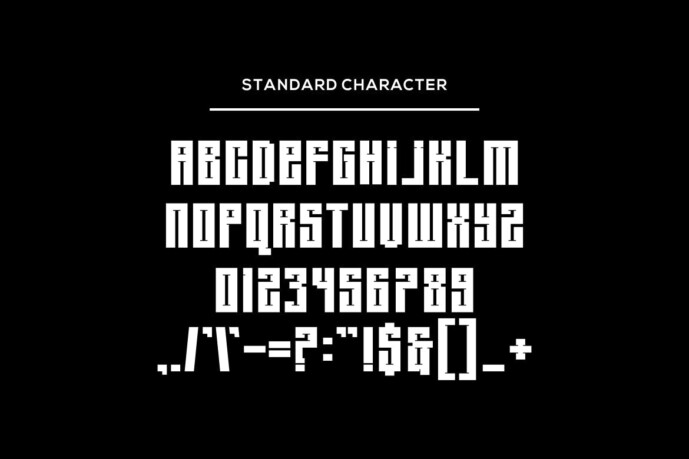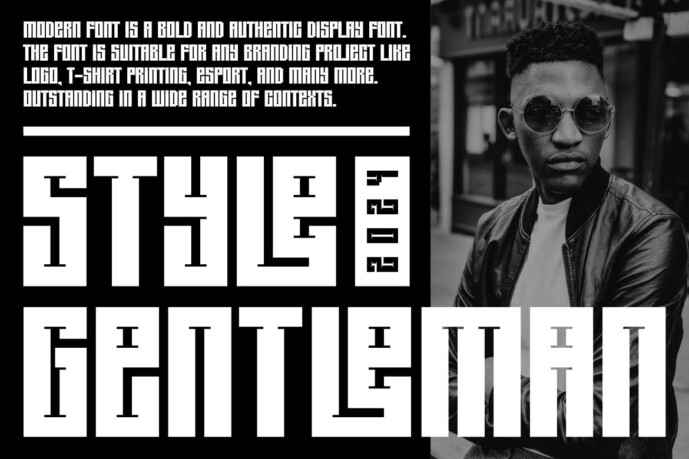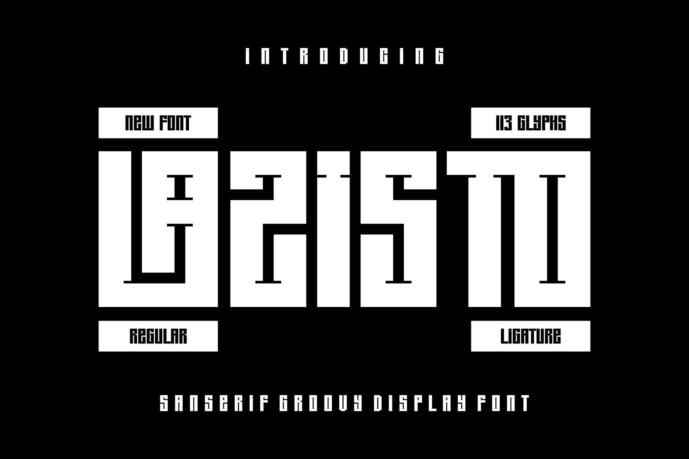
Lazisto Font
Designer: enter_design
Lazisto Font – Modern Font is a bold and authentic display font. The font is suitable for all branding projects such as Logo, esports, etc. It is exceptional in a wide range of contexts